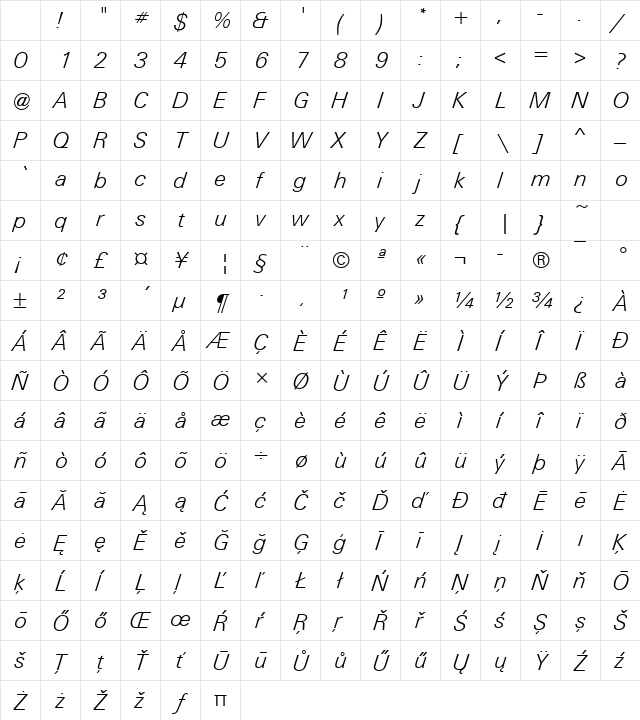
UnitusDLig is a composed and adaptable typeface that performs quietly and consistently across a wide range of design contexts. The slanted form adds forward momentum and visual energy.
Pro Tip: Use UnitusDLig for emphasis, pull quotes, and subheadings where its slanted energy can add rhythm to the layout.